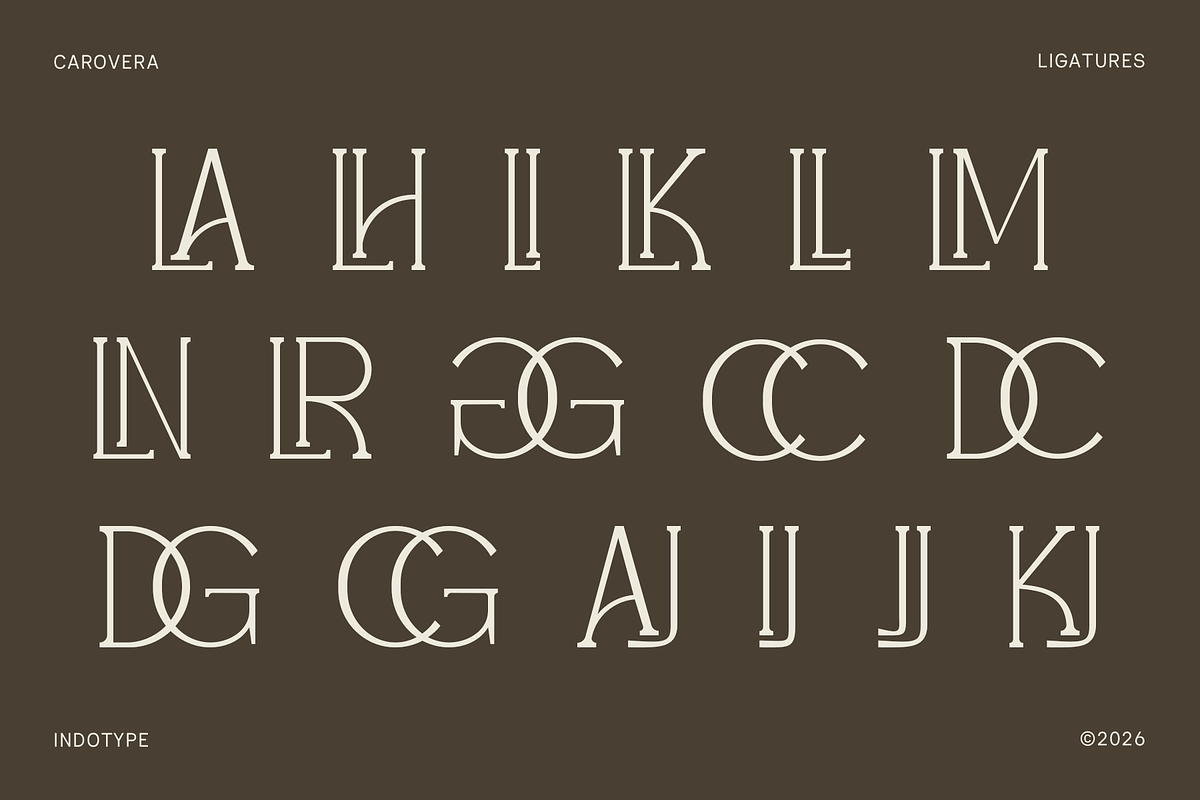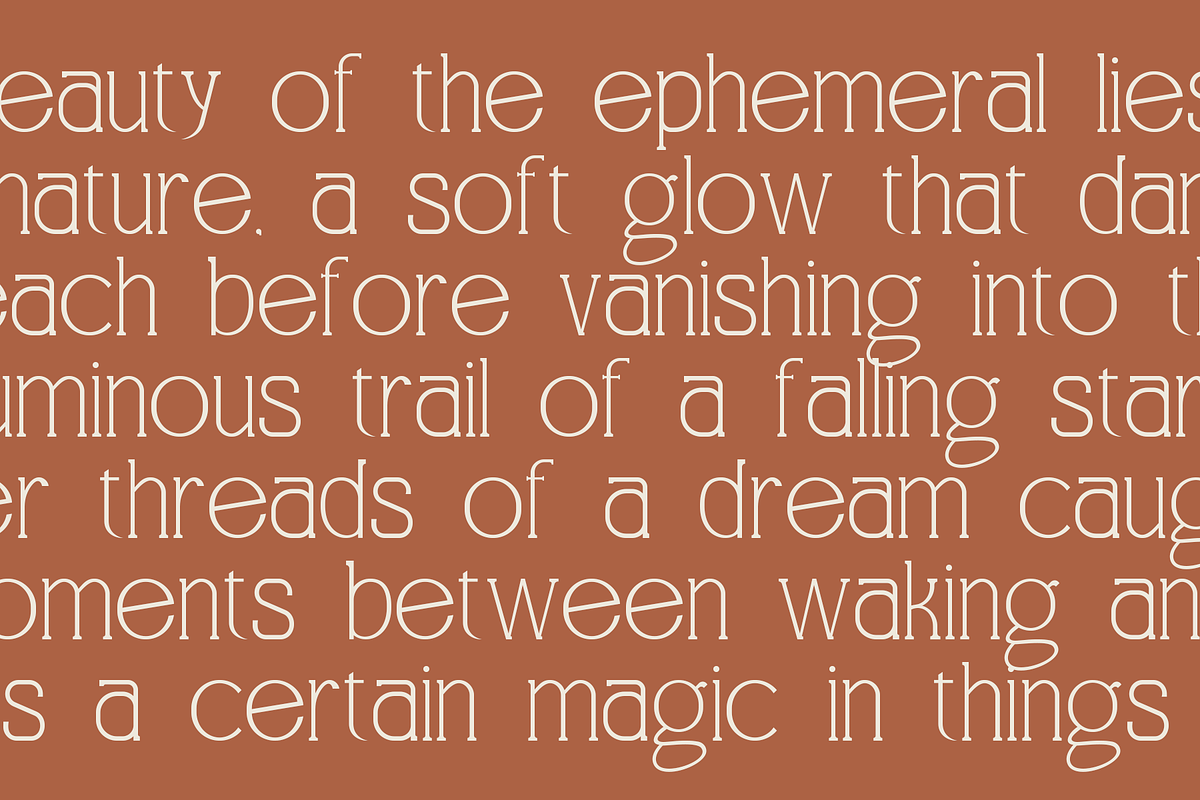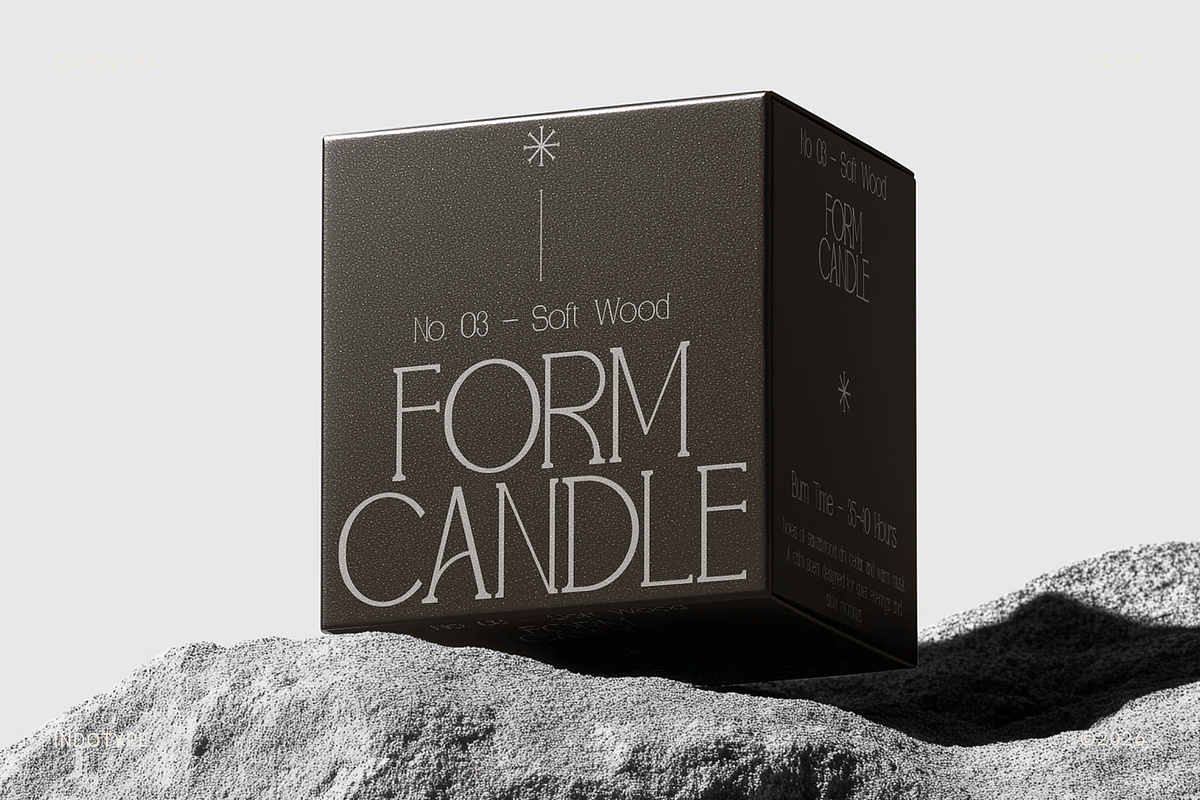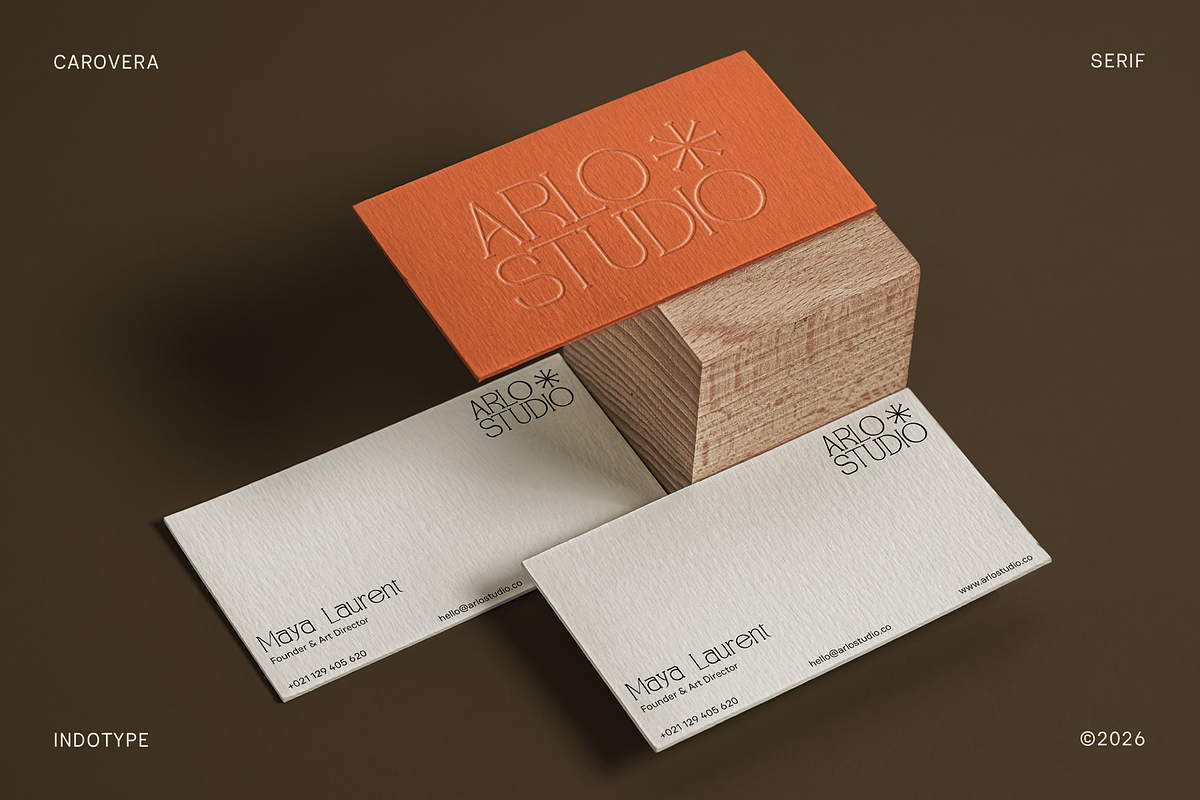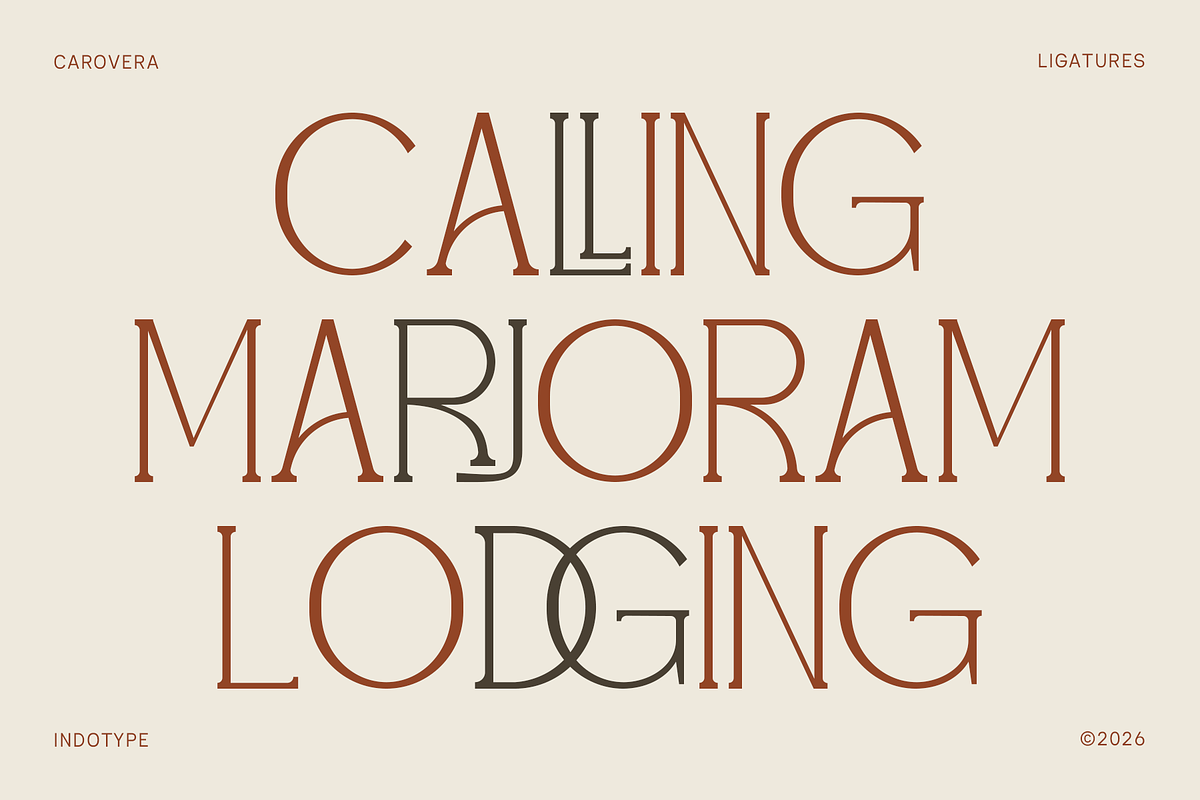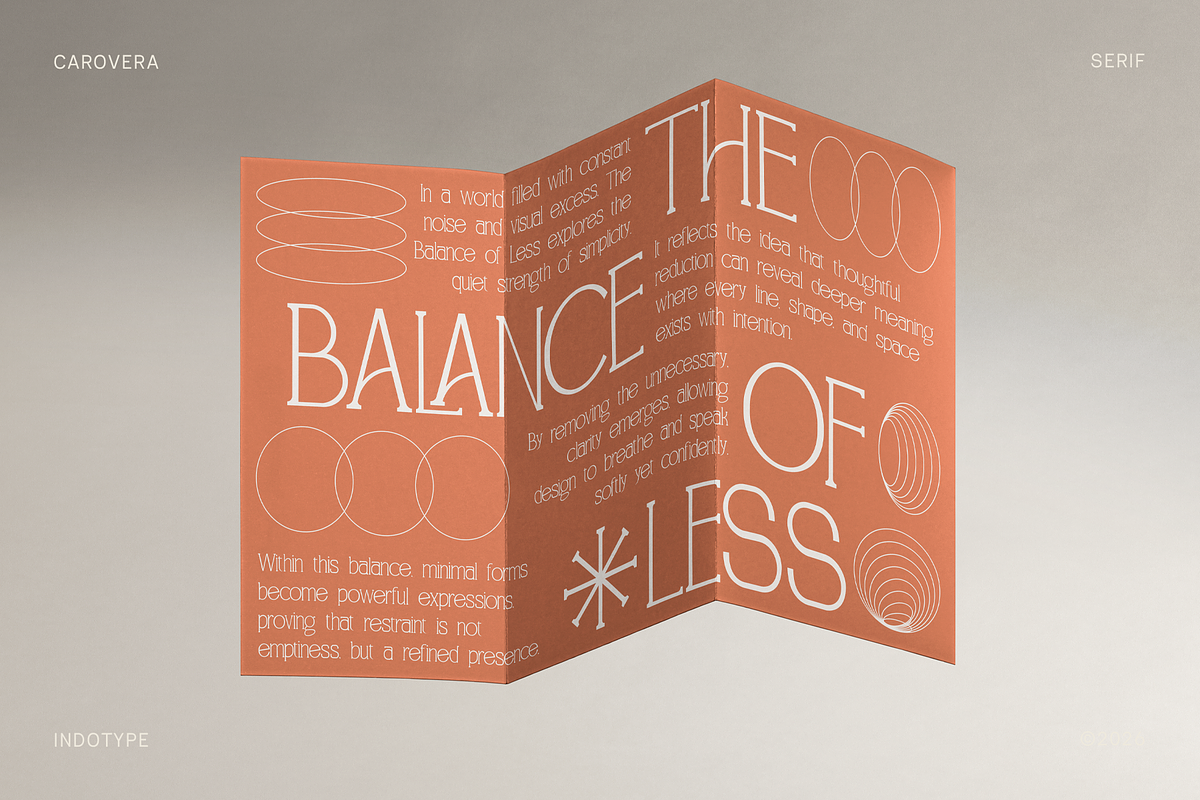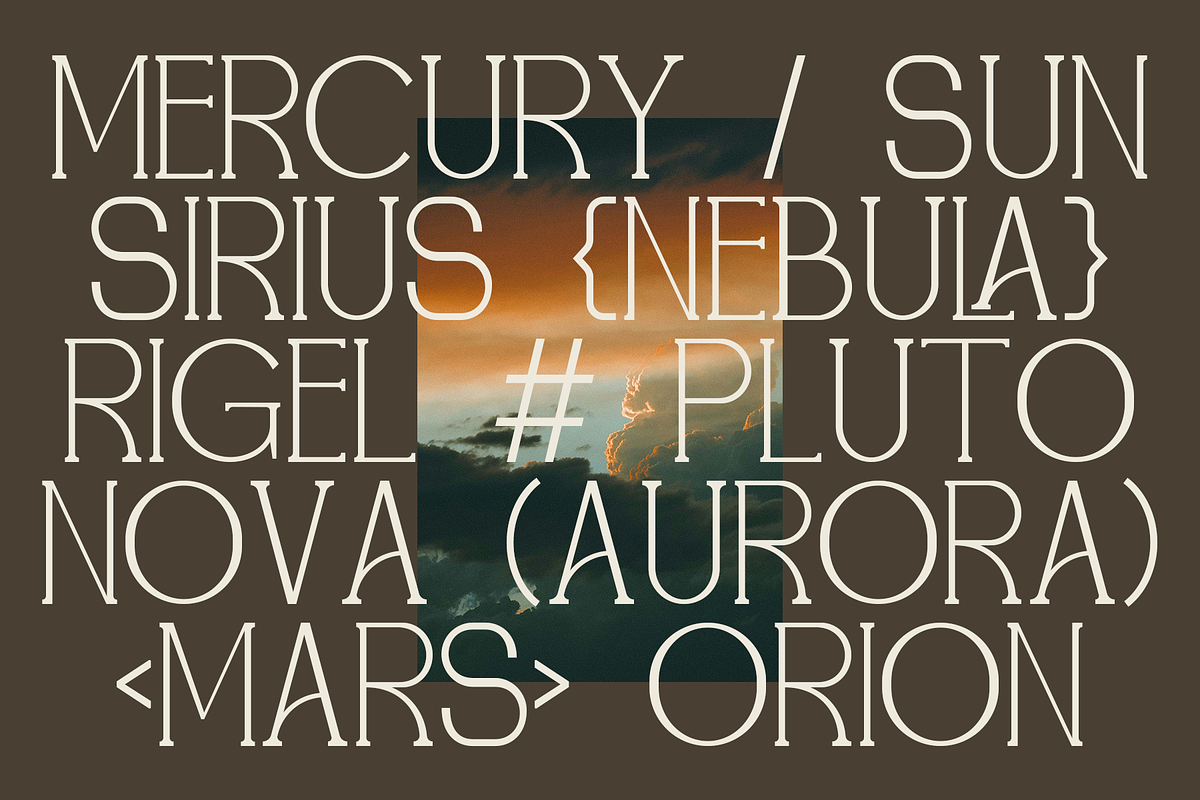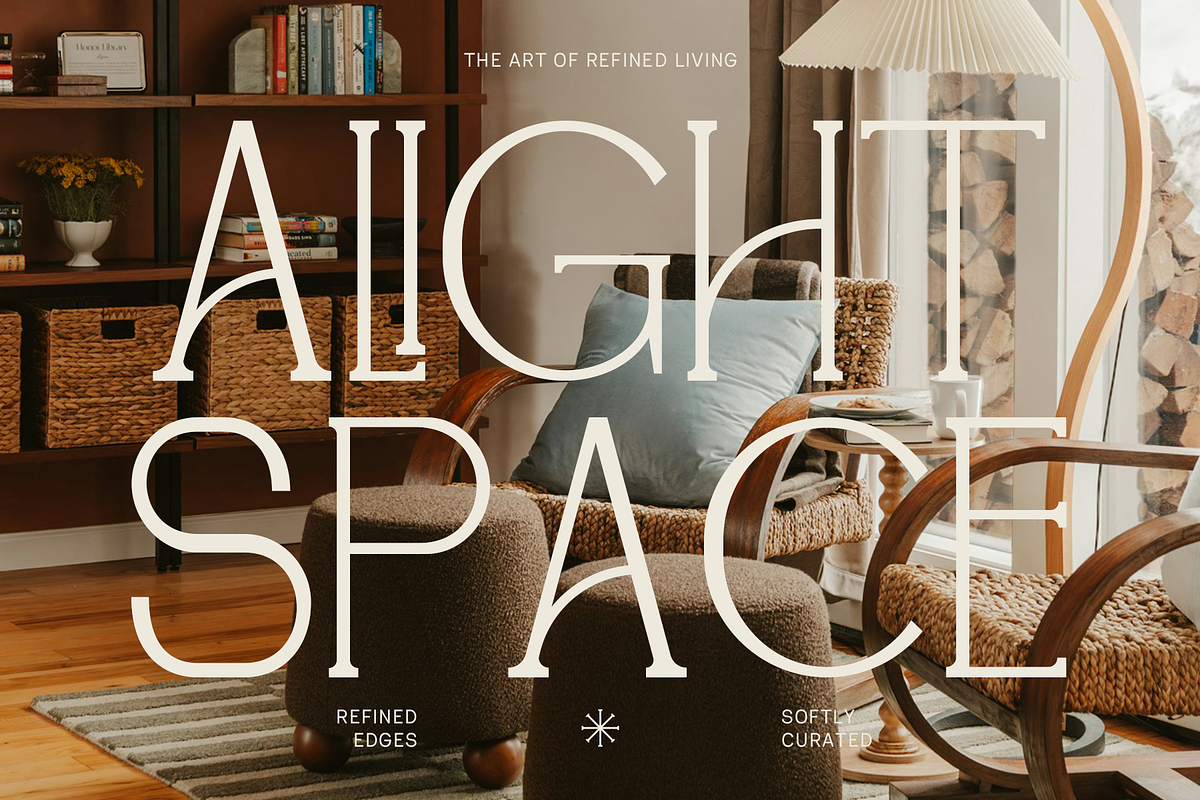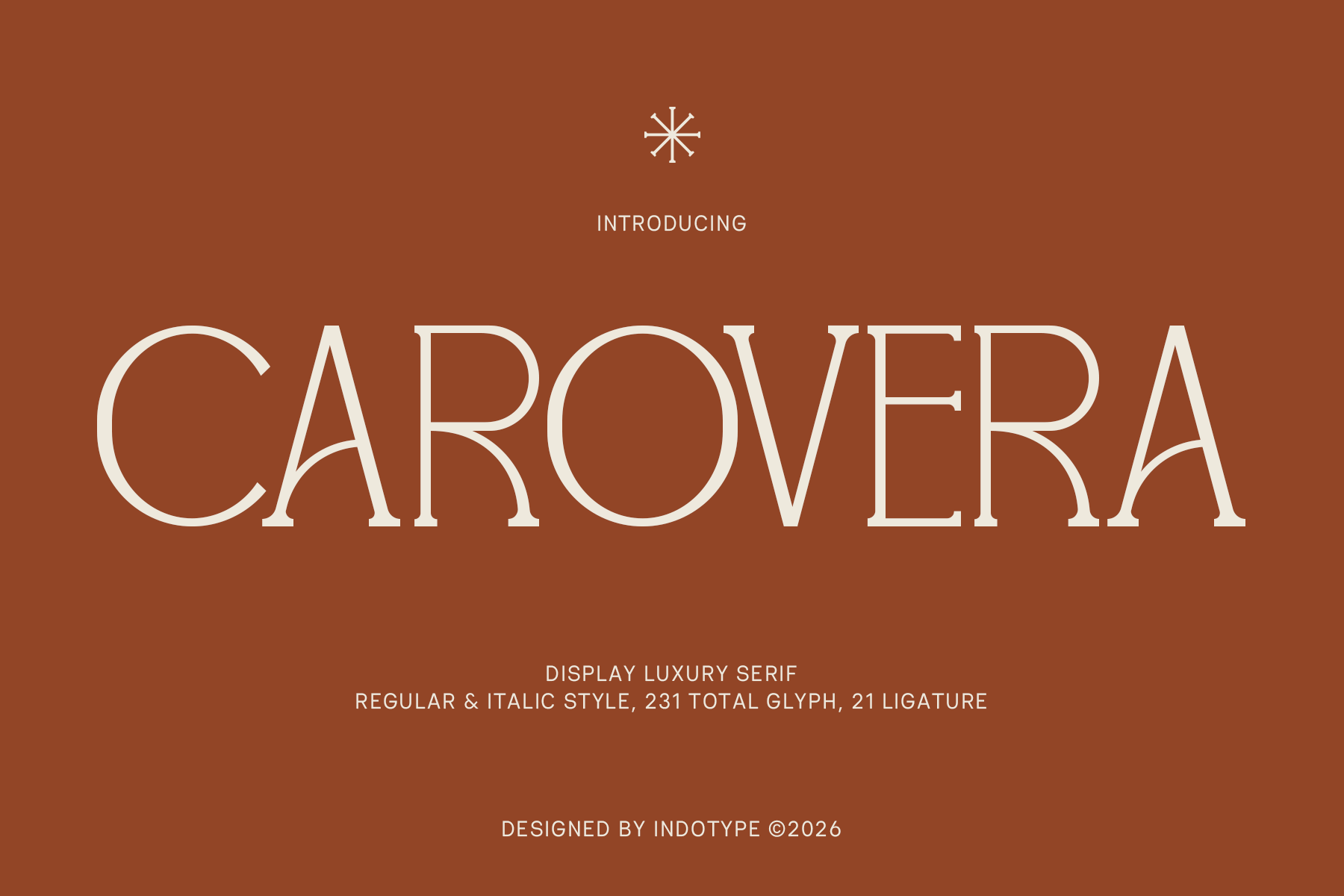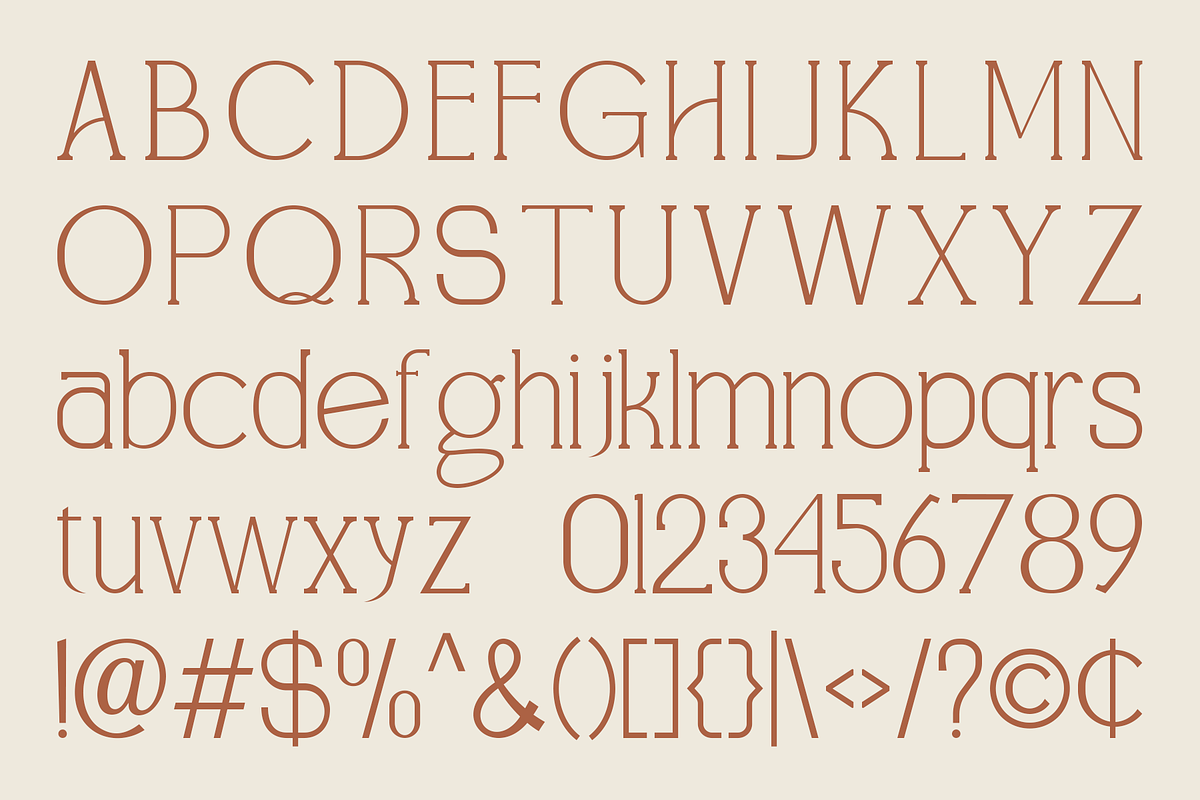
CAROVERA - Display Luxury Serif Font
Carovera is a display luxury serif typeface of rare poise and refinement. Designed by Indotype, Carovera occupies the elevated space where classical serif tradition meets the restrained sophistication of contemporary luxury design. Its letterforms are wide, open, and breathtakingly light — built on a thin stroke structure that gives the typeface an almost architectural transparency, as if each letter were drawn in negative space rather than ink. This is type designed to breathe, to pause, and to leave a lasting impression long after it has been read.
- Design Characteristics
Carovera's most immediately striking quality is its extraordinary openness. The letterforms are constructed at a notably light weight, with stroke widths calibrated to maximize white space both within and around each glyph. The result is a typeface that feels simultaneously monumental and delicate — large in scale, airy in spirit. This quality is particularly visible in the circular letterforms (C, O, G, Q), where the near-complete rounds create bold, geometric negative spaces that anchor the composition with quiet authority. The serif treatment is distinctive and deliberate: fine, flat serifs that arrive without brackets, sitting at precise angles to the stems in a manner that references humanist inscription lettering while remaining entirely contemporary in execution. These terminals give Carovera its characteristic crispness — the sense that every stroke has been drawn with a single, confident gesture and stopped exactly where it should. Moderate stroke contrast — thinner than a pure Didone but more considered than a transitional serif — places Carovera in a refined middle ground that serves luxury branding exceptionally well. The wide tracking-friendly proportions and generous x-height make it ideal for large-format display applications, where each letter can be appreciated as an individual form while contributing to a harmonious whole. With 21 OpenType ligatures built into the font, Carovera provides designers with an additional layer of typographic refinement — carefully crafted letter combinations that enhance visual flow and add moments of unexpected elegance to set headlines and wordmarks. The 231 total glyphs per style ensure comprehensive coverage across Western European languages, making Carovera a truly international luxury typeface.